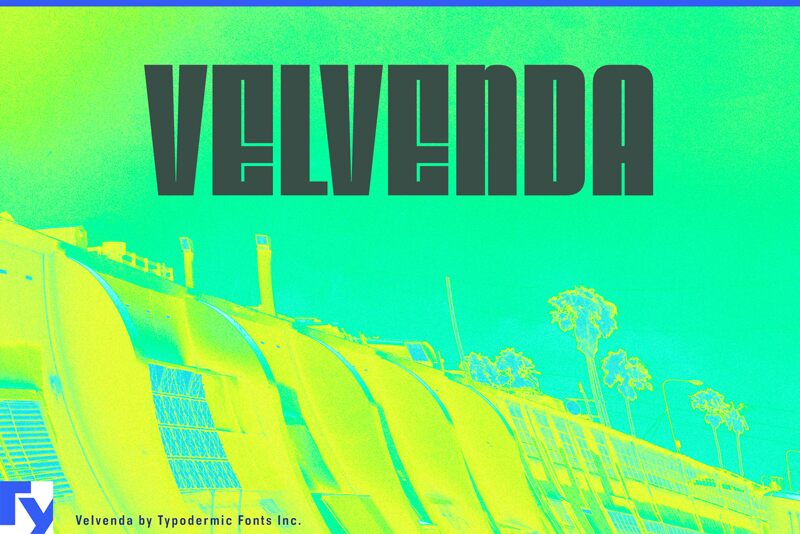
VelvendaMegablack-Regular
Velvenda Megablack, a standout member of the Velvenda font family designed by Ray Larabie of Typodermic Fonts Inc., embodies a bold retro aesthetic that demands attention. Its extra-bold weight and extra-condensed width deliver a punch of style that can anchor any design with its assertive presence.
Crafted as a display font, Velvenda Megablack offers an immediate visual impact with its tight letter spacing and solid form, making it an ideal choice for headlines, posters, and any project requiring a statement piece. The retro flair gives it a nostalgic charm while still maintaining modern readability.
The robust nature of Velvenda Megablack lends itself well to creative endeavors where strength and character are paramount. Whether used in branding, advertising campaigns, or editorial designs, this font is sure to leave an indelible mark on your audience with its unmistakable presence and stylish vintage vibe.
Crafted as a display font, Velvenda Megablack offers an immediate visual impact with its tight letter spacing and solid form, making it an ideal choice for headlines, posters, and any project requiring a statement piece. The retro flair gives it a nostalgic charm while still maintaining modern readability.
The robust nature of Velvenda Megablack lends itself well to creative endeavors where strength and character are paramount. Whether used in branding, advertising campaigns, or editorial designs, this font is sure to leave an indelible mark on your audience with its unmistakable presence and stylish vintage vibe.
Velvenda Megablack
Ray Larabie